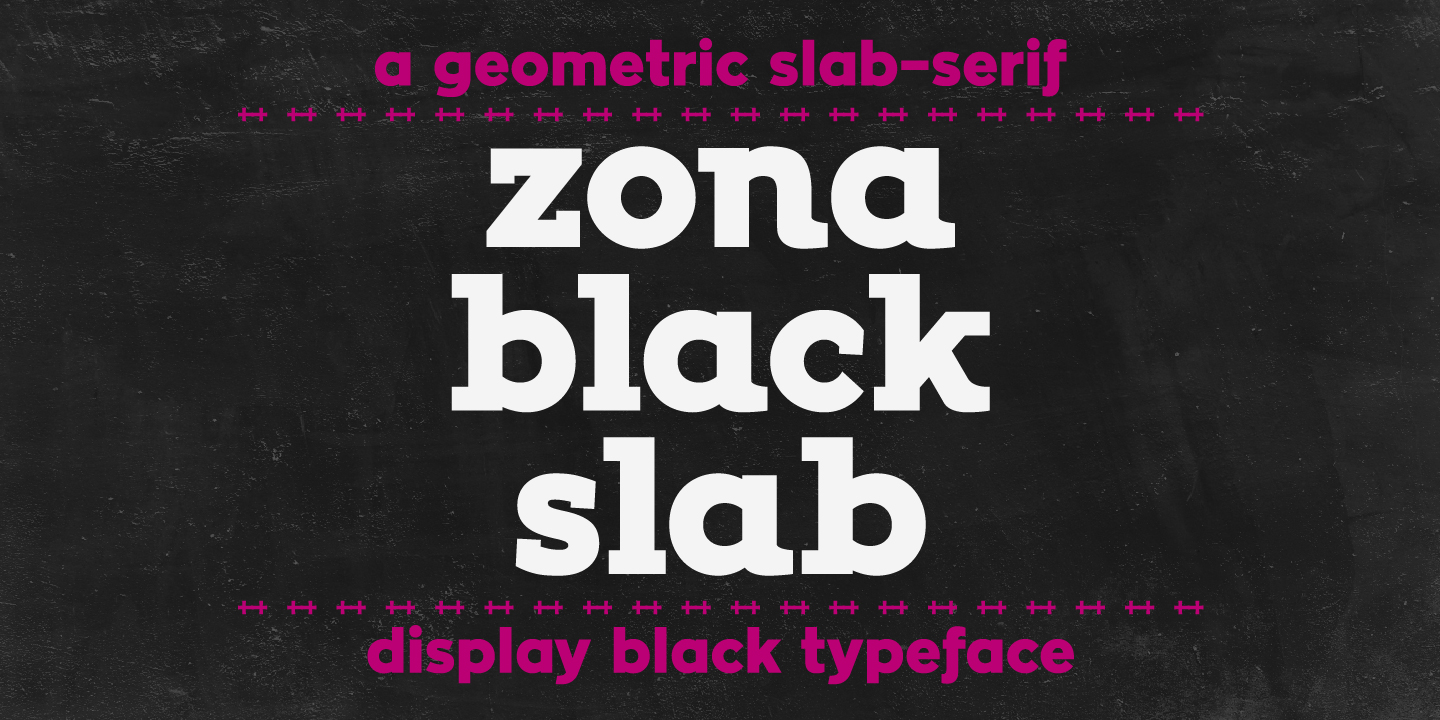
Zona Black Slab Font is perfect for bold advertising campaigns, impactful poster designs, commanding headline typography, powerful brand statements, dominant signage systems, striking editorial layouts, authoritative business communications, and attention-grabbing marketing materials.
What makes Zona Black Slab Font exciting is its commanding presence that instantly dominates any visual landscape through typography that refuses to be ignored and demands immediate attention with overwhelming authority and uncompromising boldness. The powerfully crafted letterforms showcase massive weight with substantial slab-serif construction that creates an immediate impression of strength, reliability, and market dominance that cannot be overlooked or underestimated. This extraordinary typeface embodies visual authority, market leadership, and unstoppable confidence, making it the ultimate choice for brands and campaigns that need to break through competitive noise and establish immediate recognition in crowded marketplaces where only the boldest messages survive.
The Zona Black Slab Font family includes ultra-bold weight with complete uppercase and lowercase character sets, heavy-duty numerals, commanding punctuation marks, and powerful decorative elements. The comprehensive glyph collection features bold symbols, dominant alternates, and authoritative ornaments that enhance the imposing aesthetic across all high-impact advertising and branding design applications.
Marketing professionals and brand strategists seeking Zona Black Slab Font Free Download will discover exceptional opportunities for creating market-dominating, attention-commanding communications. This remarkable typeface transforms standard advertising text into compelling visual powerhouses that immediately communicate strength, authority, and brand dominance. Whether you're designing breakthrough advertising campaigns, creating commanding corporate identity systems, developing powerful outdoor signage, or crafting attention-grabbing promotional materials, this font delivers outstanding results that cut through market clutter and establish instant brand recognition while projecting the kind of visual confidence that makes competitors take notice and customers remember your message.
The strategically engineered letter spacing and dominant construction make Zona Black Slab Font highly effective across both large-scale outdoor advertising and smaller high-impact promotional applications. Its commanding character ensures maximum visibility and market impact in competitive environments while maintaining excellent readability for critical marketing communication needs. From billboard advertisements to bold business cards, this font consistently delivers championship-level performance that never backs down from the competition.